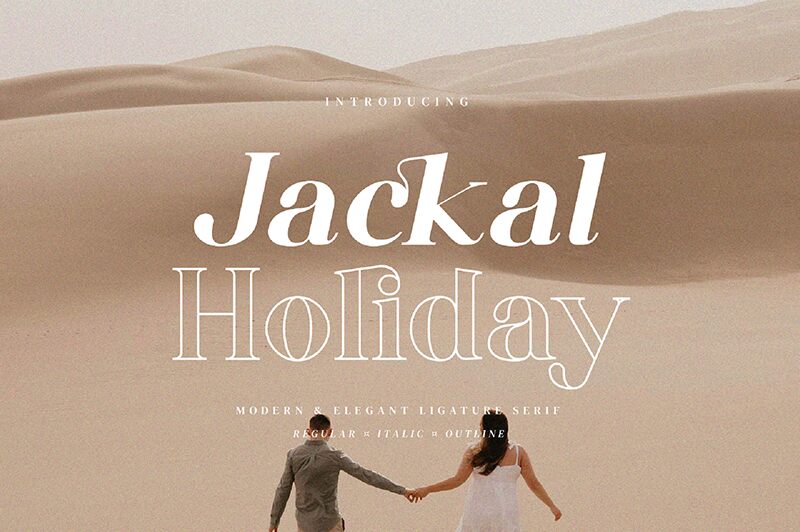
Jackal Holiday Outline
Jackal Holiday Outline font is a free serif font by Biham Santoso with all the attributes of a majestic, refined, and vintage-inspired typeface. It’s elegant with decorative elements that grant it a formal mood which it transfers as intended to any project that uses it. Its beauty and subtle melancholy will attract all eyes.
Go for Jackal Holiday on invitations for weddings or other formal events as well as on menus, whether printed or digital ones. The outline text made with this font is exquisite too; try it on website headings, magazine covers, posters, social media advertisements, and more! Text-based logos can work well also!